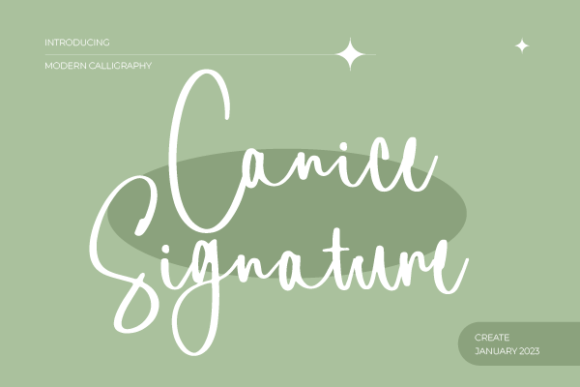
The Designer’s Delight: Canice Signature Font
I’ll never forget the moment I stumbled upon Canice Signature font while working on a branding project for a luxury wedding planner. I had tried countless fonts, but none seemed to capture the essence of elegance and sophistication that my client desired. That was until I laid eyes on Canice Signature – it was love at first sight! 💕
Canice Signature is an exquisite handwritten font, masterfully designed to become a true favorite. It maintains its classy calligraphic influences while feeling contemporary and fresh. In this article, I’ll share my experience with this stunning font, its features, and how to make the most of it in your designs.
- ✨ Exquisite handwritten style with a perfect balance of elegance and modernity
- ✅ Extensive character set, including multilingual support
- ✨ Beautifully crafted swashes and ligatures for added flair
While Canice Signature is an exceptional font, there are a few minor considerations to keep in mind:
- ⚠️ Some users may find the font’s script style a bit challenging to read at very small sizes (less than 10pt)
- 🤔 Limited availability of condensed or italic styles, which may limit its versatility in certain design contexts
Canice Signature was crafted with a passion for calligraphy and a desire to create a font that would evoke the elegance of traditional handwritten scripts. The designer aimed to create a font that would be both timeless and modern, perfect for a range of creative projects.
Q: What makes Canice Signature unique?
A: Canice Signature stands out with its exquisite handwritten style, extensive character set, and beautiful OpenType features, making it perfect for a range of design applications.
Q: Is Canice Signature suitable for body text?
A: While Canice Signature is highly legible, its script style may not be the best choice for lengthy body text. It’s better suited for headings, titles, and short paragraphs.